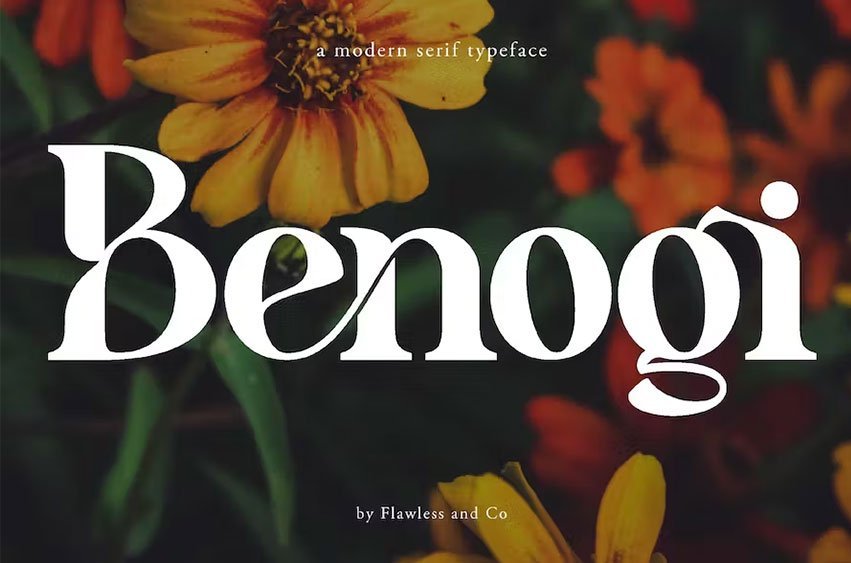
Benogi Font Our latest creation is, modern serif with various alternates and ligatures, multilingual support, and an updated blend of bohemian style, suitable for branding, business, logos, magazines, and others.
Multilingual Uppercase alphabet A-Z Lowercase alphabet a-z Alternate Character Numbers 0-9 Some punctuation